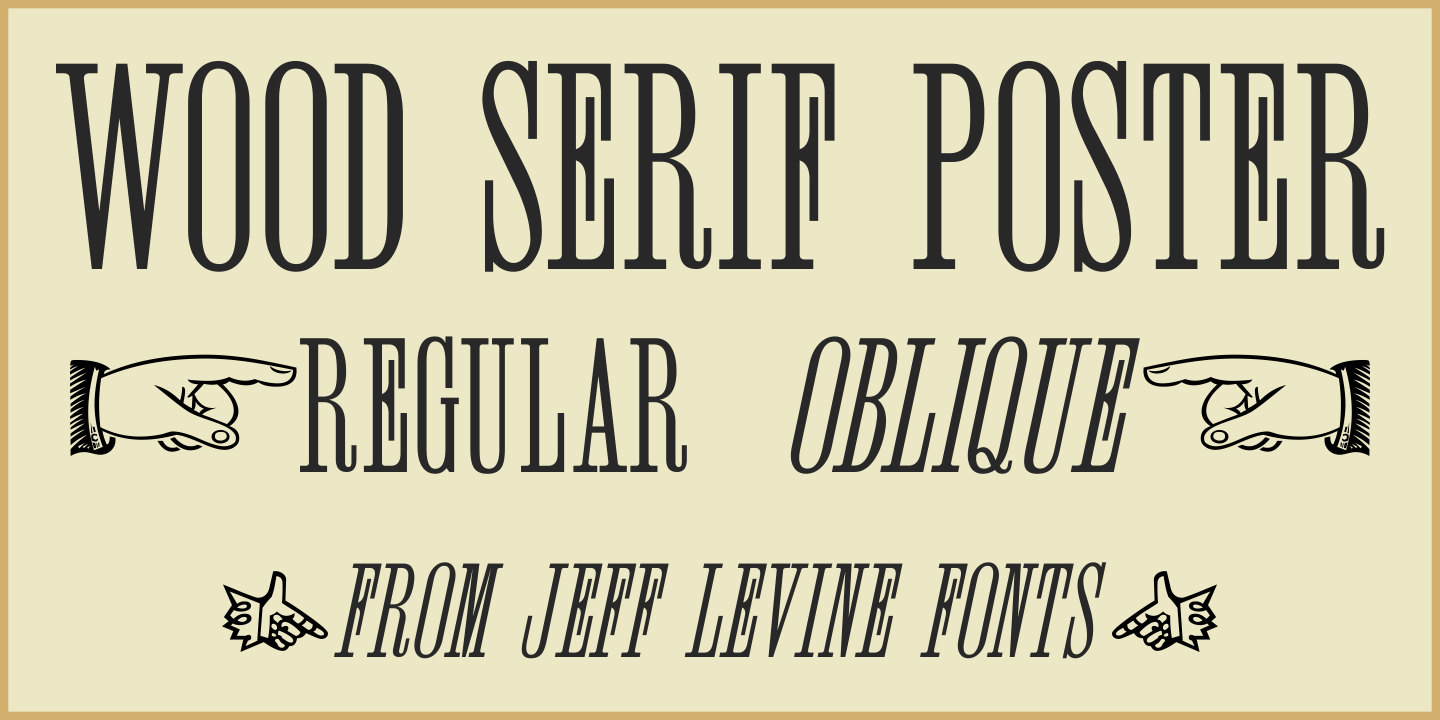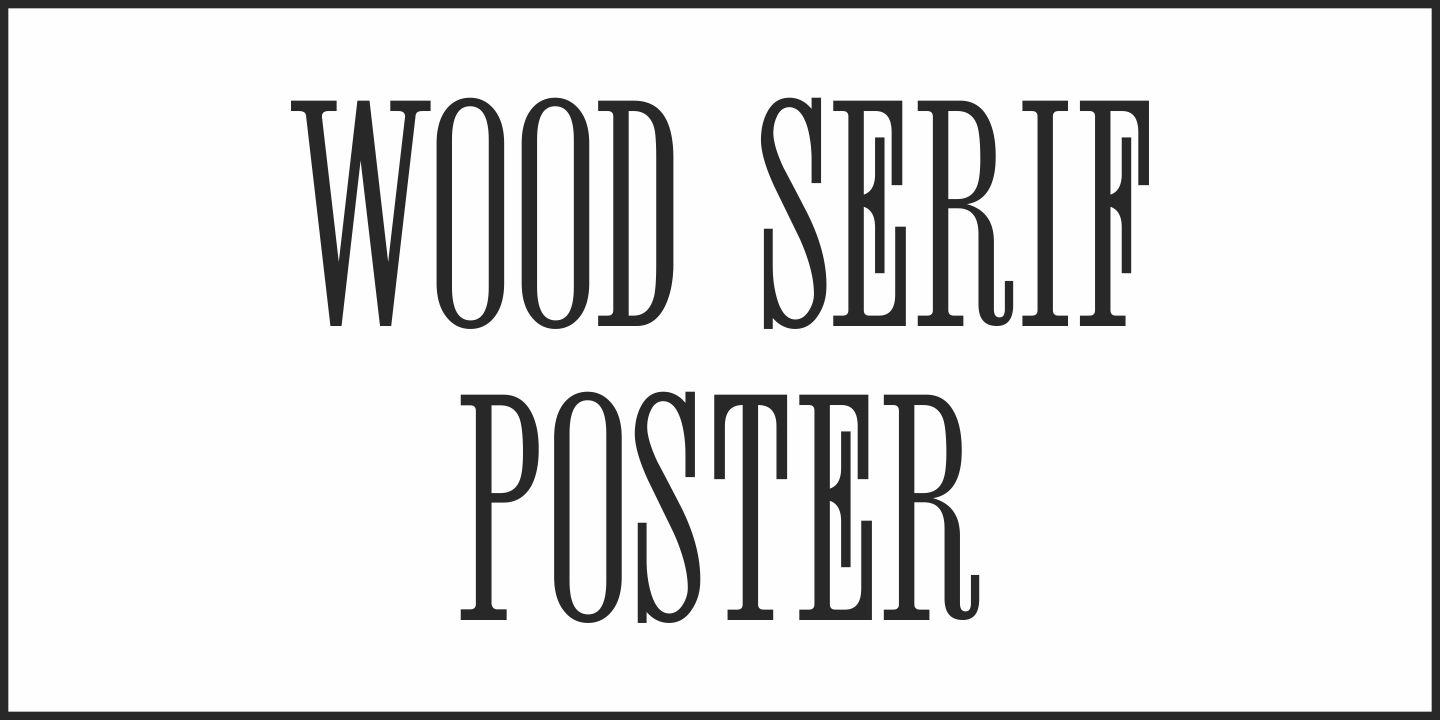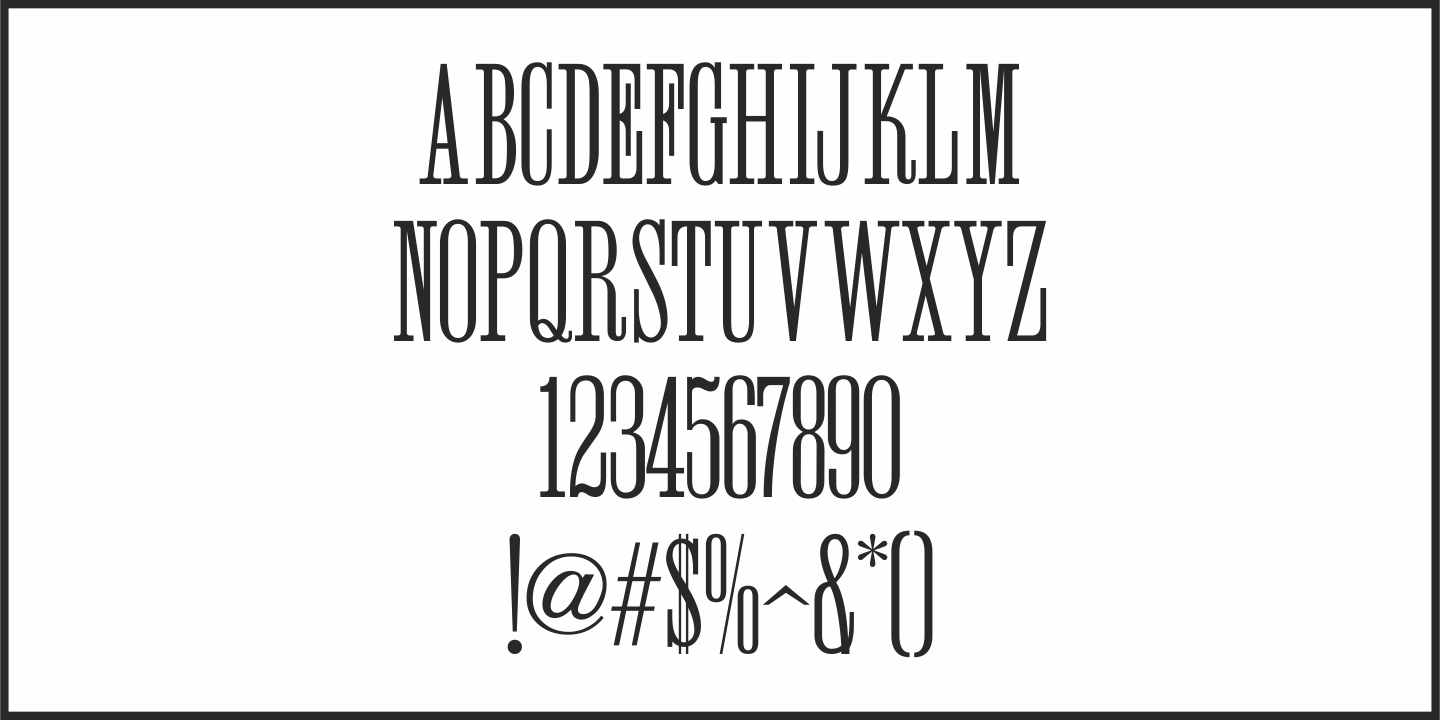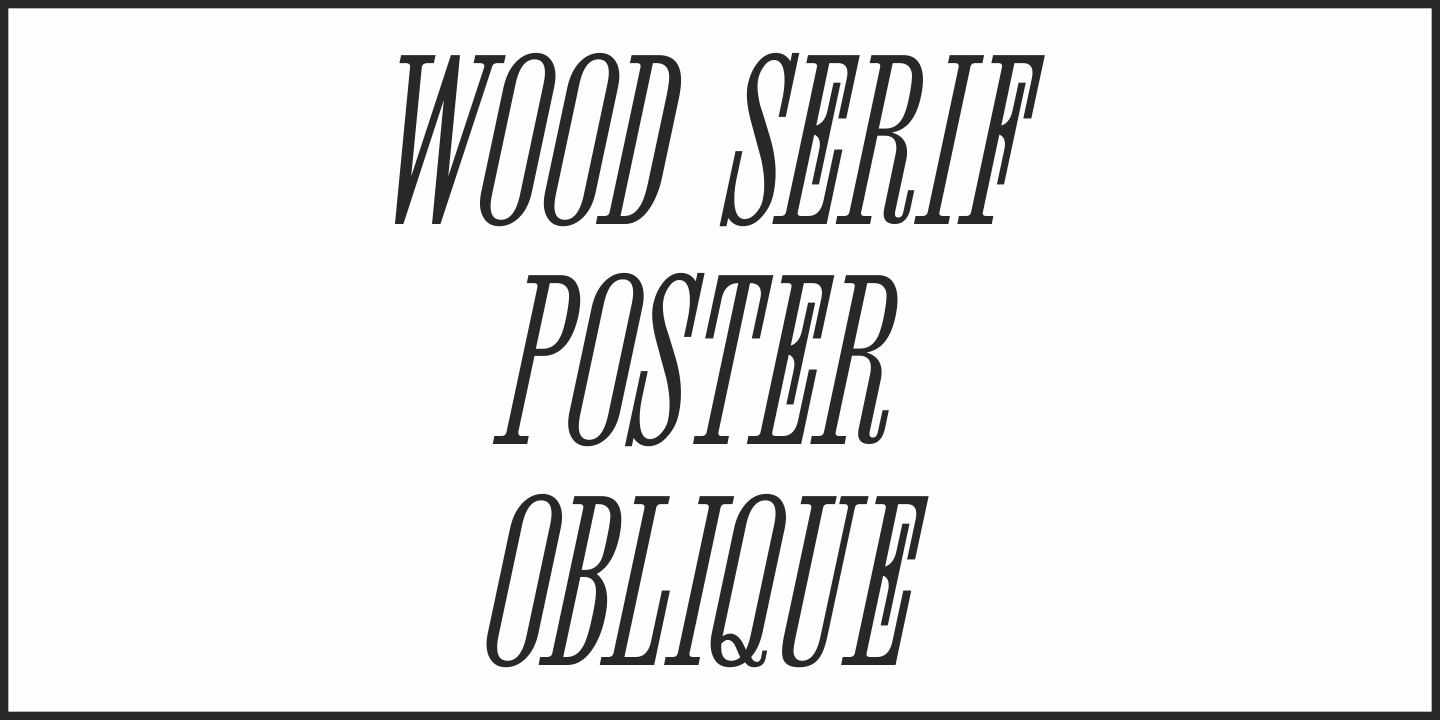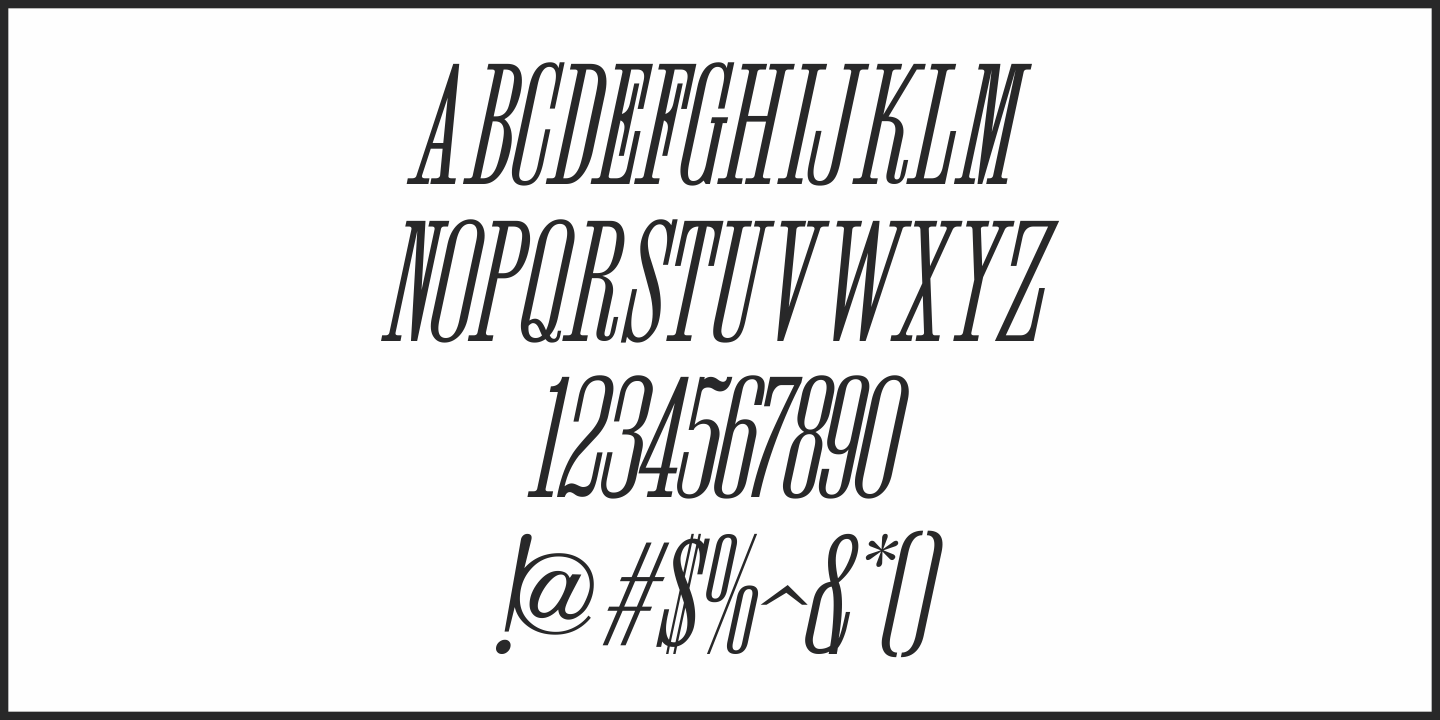
Wood Serif Poster
A type foundry example showcasing some letters from a narrow slab serif wood type design served as the inspiration for Wood Serif Poster JNL.
This condensed typeface is available in both regular and oblique versions, and digitally recreates the kind of lettering found on flyers, broadsides and newspaper headlines of the mid-to-late 1800s.